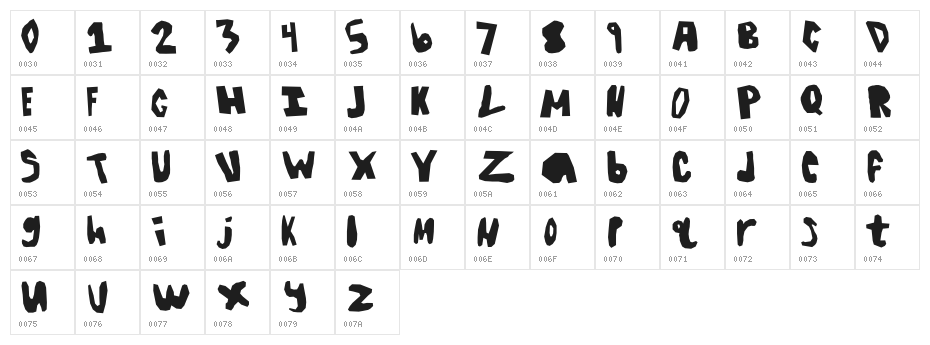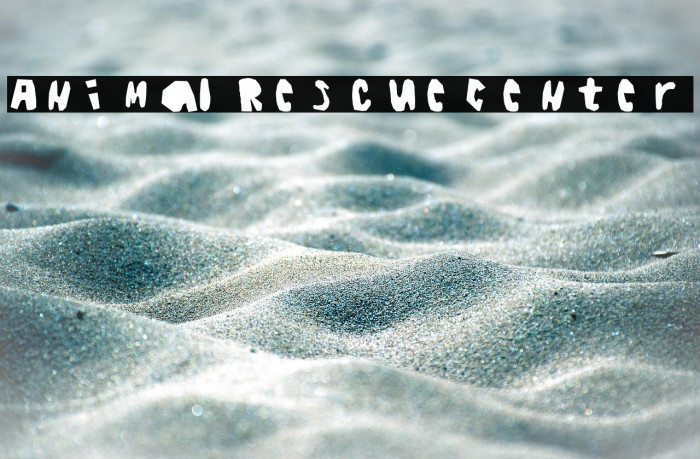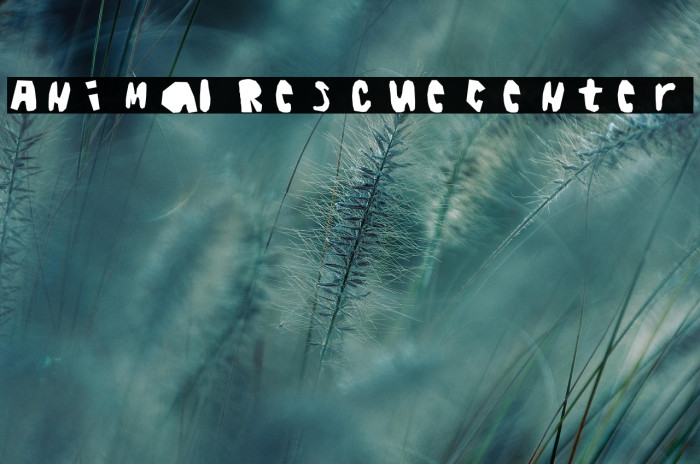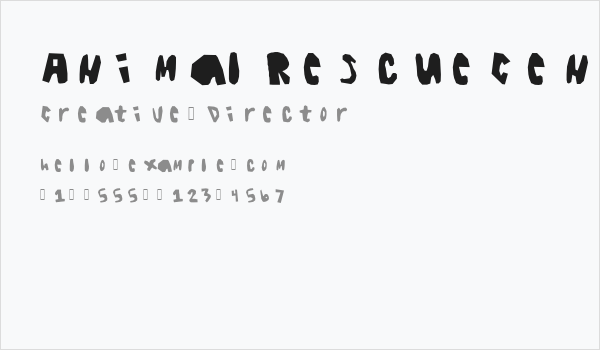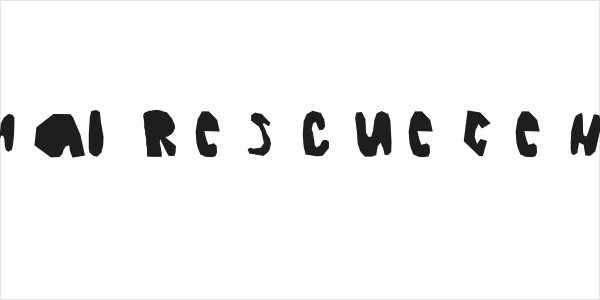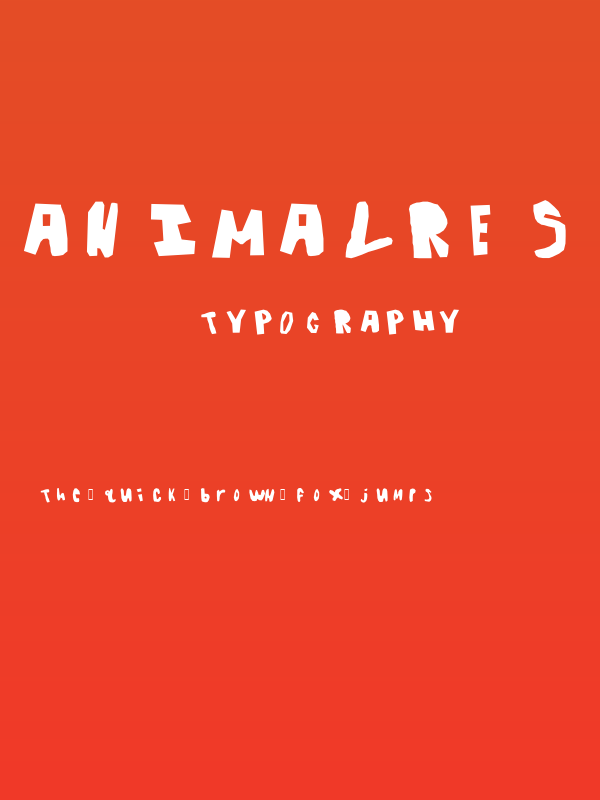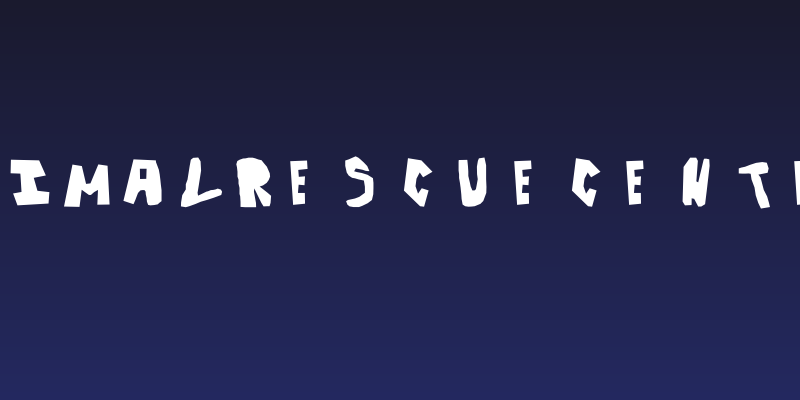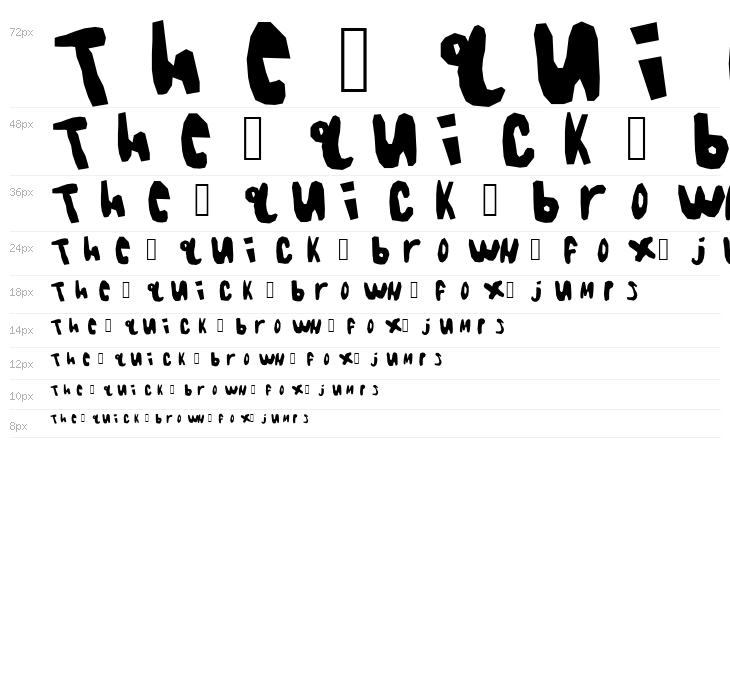
AnimalRescueCenter Font
AnimalRescueCenter Description
This font features a playful and irregular design, characterized by its bold and uneven strokes. Each letter has a unique, hand-drawn appearance, giving it a whimsical and artistic feel. The uppercase and lowercase letters maintain a consistent style, with exaggerated curves and angles that add to its quirky charm. Numbers and special characters follow the same playful aesthetic, making the font suitable for creative and informal projects. The overall look is dynamic and lively, perfect for capturing attention and conveying a sense of fun.
| Overall Style | Playful, Artistic |
| Proposed Projects | Ideal for children's books, playful branding, event posters, and creative social media graphics. |